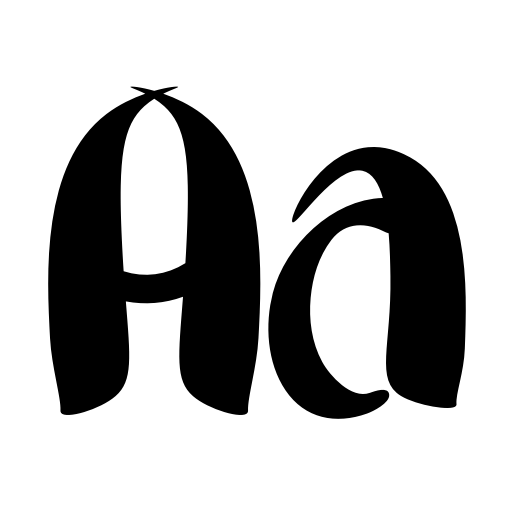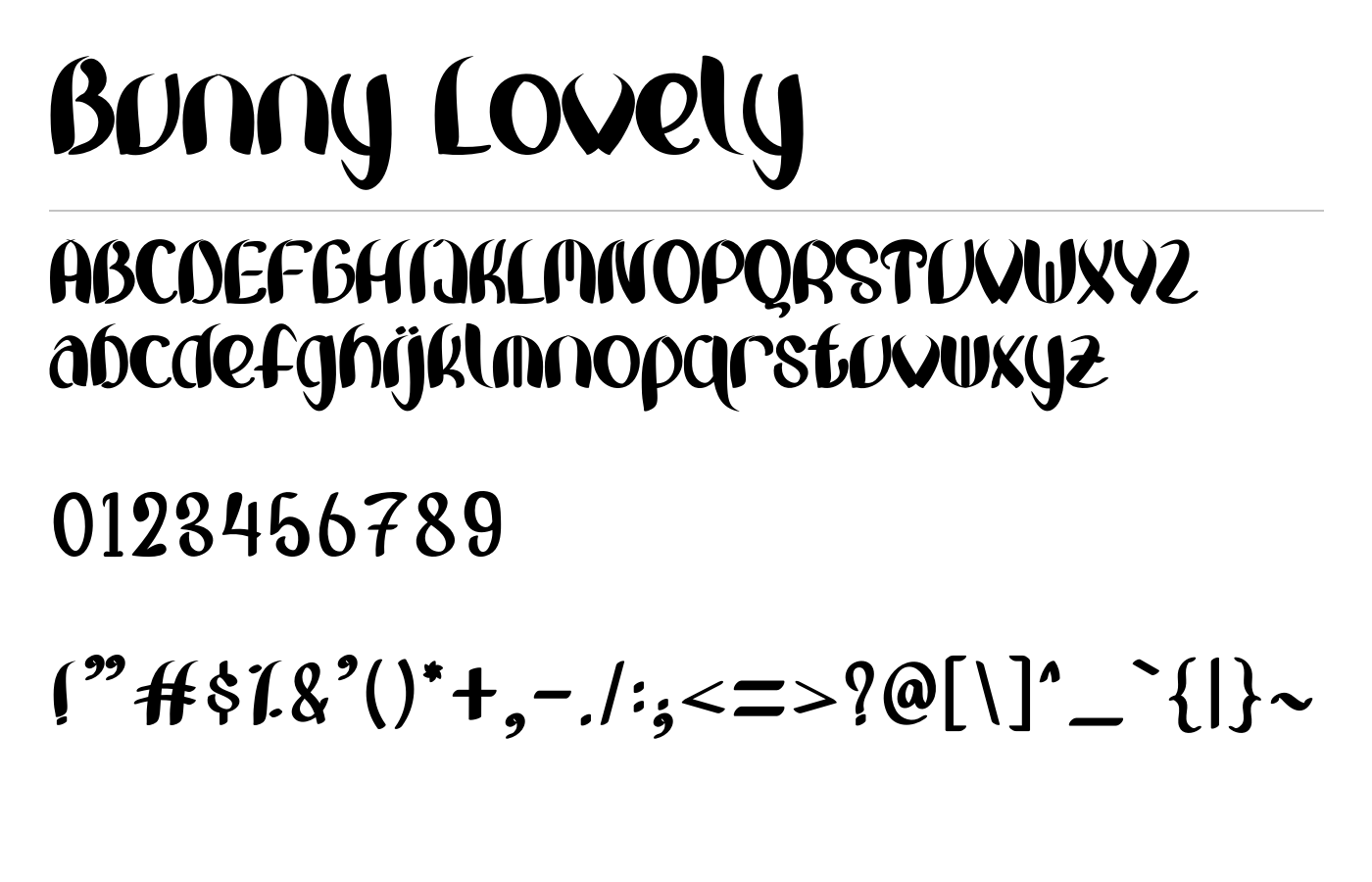
Bunny Lovely Font is a playful and artistic display typeface with a unique blend of rounded and sharp strokes that create a lively and charming personality. Its medium weight and distinctive, flowing letterforms make it perfect for creative branding, invitations, and headlines where a whimsical yet bold look is desired. This font shines in designs seeking a fun, friendly, and distinctive flair.
Bunny Lovely Font
About Bunny Lovely Font